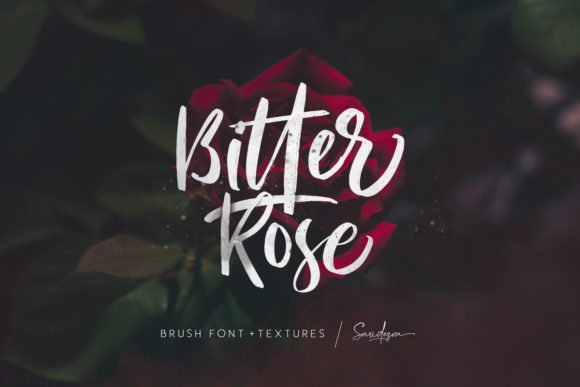
The Perfect Bouquet of Typography
Have you ever been brainstorming a project and suddenly, a spark of inspiration hits you? Maybe it’s the perfect color palette, or a unique texture that sets the tone for your design. For me, it’s often the font that makes or breaks the entire aesthetic. That’s why I’m excited to share with you the Bitter Rose Font – a striking script that’s about to become your new go-to.
This beautiful font boasts bold letters with incredible readability, making it perfect for any design that needs a unique look. Whether you’re working on a branding project, creating a stunning poster, or crafting a bespoke invitation, the Bitter Rose Font is sure to elevate your work. And, as a bonus, you’ll get to enjoy beautiful textures that will add an extra layer of depth to your designs.
Bitter Rose Font Key Features
- Unique Characteristics: Bitter Rose Font features a unique blend of modern and vintage elements, with a distinctive rose-inspired design that adds a touch of elegance and sophistication to any project.
Bitter Rose Font Review
I recently had the chance to work with the Bitter Rose font, and I must say it’s a beautiful, elegant script. ✨ The font’s unique combination of whimsical and refined elements makes it perfect for a wide range of projects, from wedding invitations to luxury brand logos. ✨ The connection between letterforms and the subtle flair at the ends of letters are some of my favorite aspects of this font. ✨
Here are some specific features that I think make Bitter Rose stand out:
- Highly customizable: The font comes with a variety of styles and weights, allowing you to tailor it to your specific design needs.
- Unique flair: The subtle flair at the ends of letters adds a touch of sophistication and elegance to any design.
- Highly legible: Despite its ornate appearance, Bitter Rose is surprisingly easy to read, making it a great choice for body text.
While Bitter Rose is a beautiful font, there are a few limitations to be aware of:
- Not ideal for headlines: Due to its delicate nature, Bitter Rose may not be the best choice for large, bold headlines.
- Requires careful kerning: The font’s unique flair can sometimes make it difficult to get the kerning just right, so be sure to double-check your spacing.
- Not as versatile as some other fonts: While Bitter Rose is a great choice for certain projects, it may not be as versatile as some other fonts that can be used in a wider range of contexts.
Overall, I’m really impressed with the Bitter Rose font. While it may have some limitations, its unique beauty and high level of customization make it a great choice for designers who want to add a touch of elegance to their projects. ✨
The Bitter Rose Font is a beautiful, elegant script font that is perfect for:
- Book titles and author names.
- Special occasion cards and gifts.
For best results, pair the Bitter Rose Font with a clean, modern sans-serif font for a beautiful contrast.